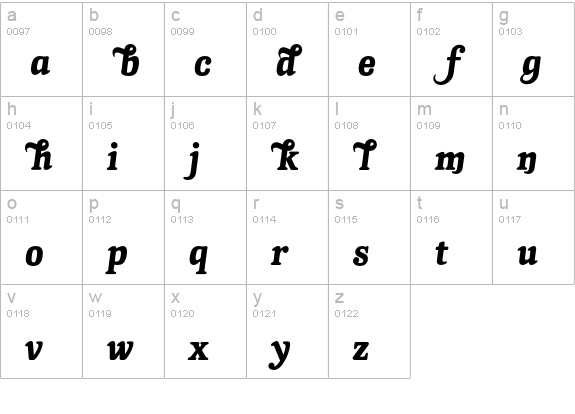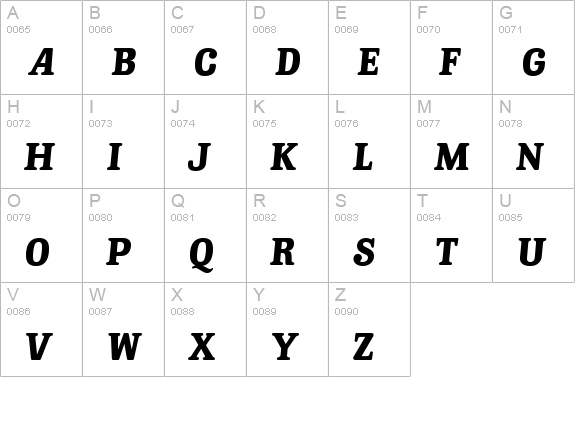
KnightsbridgeEF-Alternate font is a stunning display font that exudes elegance and sophistication. With its intricate letterforms and ornate details, this font is perfect for creating eye-catching designs that demand attention. What sets KnightsbridgeEF-Alternate font apart is not only its impeccable craftsmanship but also the fact that it is available for free. That's right, you can easily download this extraordinary font without any cost at FontsMarket.com. Whether you're working on a logo, branding materials, or any creative project, KnightsbridgeEF-Alternate font will elevate your design to new heights. Its alternate characters add versatility and allow you to experiment with different looks and styles. The attention to detail in KnightsbridgeEF-Alternate font is truly remarkable. Each letter is meticulously designed to ensure a seamless flow and aesthetic appeal. From the graceful curves to the ornamental flourishes, every aspect of this font showcases the dedication and skill of its creator. With its timeless appeal, KnightsbridgeEF-Alternate font is suitable for a wide range of design projects. Whether you're aiming for a vintage-inspired feel, a luxurious touch, or a sophisticated look, this font has got you covered. So why wait? Take advantage of this incredible opportunity and download KnightsbridgeEF-Alternate font for free at FontsMarket.com. Unleash your creativity and make a statement with this exquisite font that is sure to leave a lasting impression.